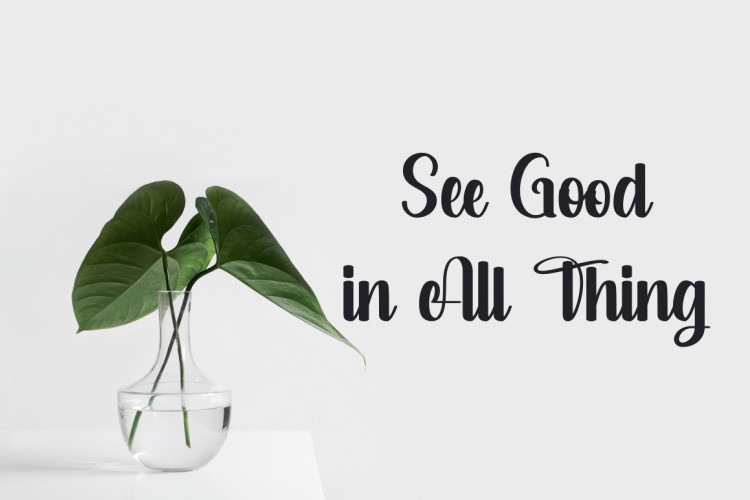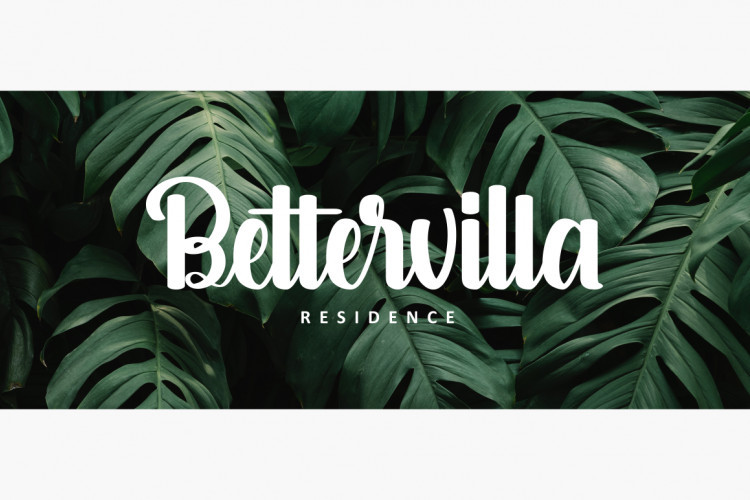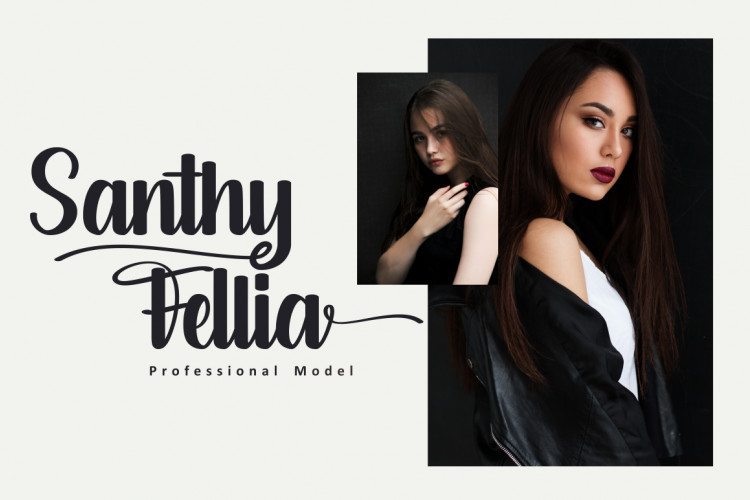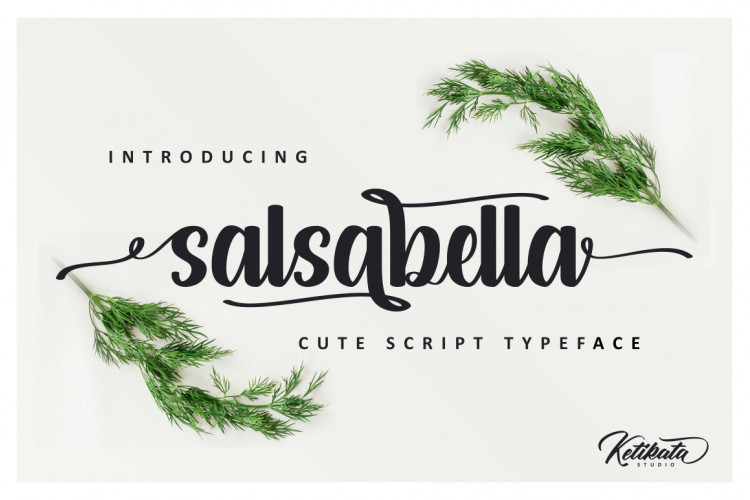
Salsabella Cute Script Font
Thank you for looking this font. This is a lovely bouncy script font with a natural & stylish flow. Perfect for making elegant stylish statements – or adding a touch of class to your designs. Introducing Salsabella Cute Font! Salsabella Cute Script Font is a modern and cute font with a lot of stylistic alternates for your beautiful project. Author made this font carefully so that each letter could be connected well and elegantly either using alternate or not. with start and ending swash, and middle swash for some letters, this is very easy to use, just rely on your creativity! This font is looks good to use it for Logotype, Name Tag, Short Quotes, Wedding Invitation Design, Greeting Card, Business Card, and many more Design Project.